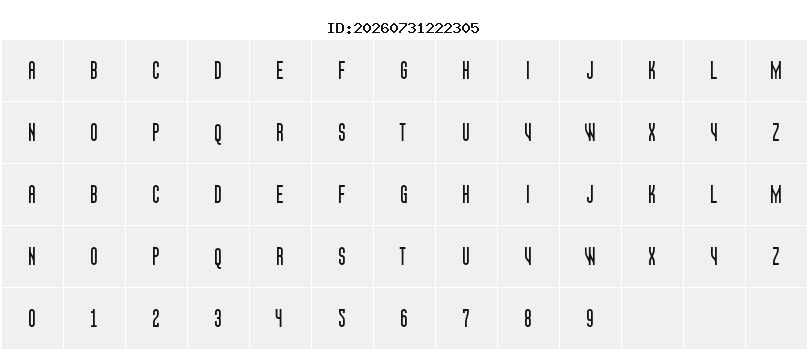
Laurel Preview
• Font Name: Laurel
About Laurel.ttf
Laurel.ttf is a modern, elegant sans-serif font designed for ultimate readability and visual harmony. Perfect for branding, headlines, web design, and print materials.